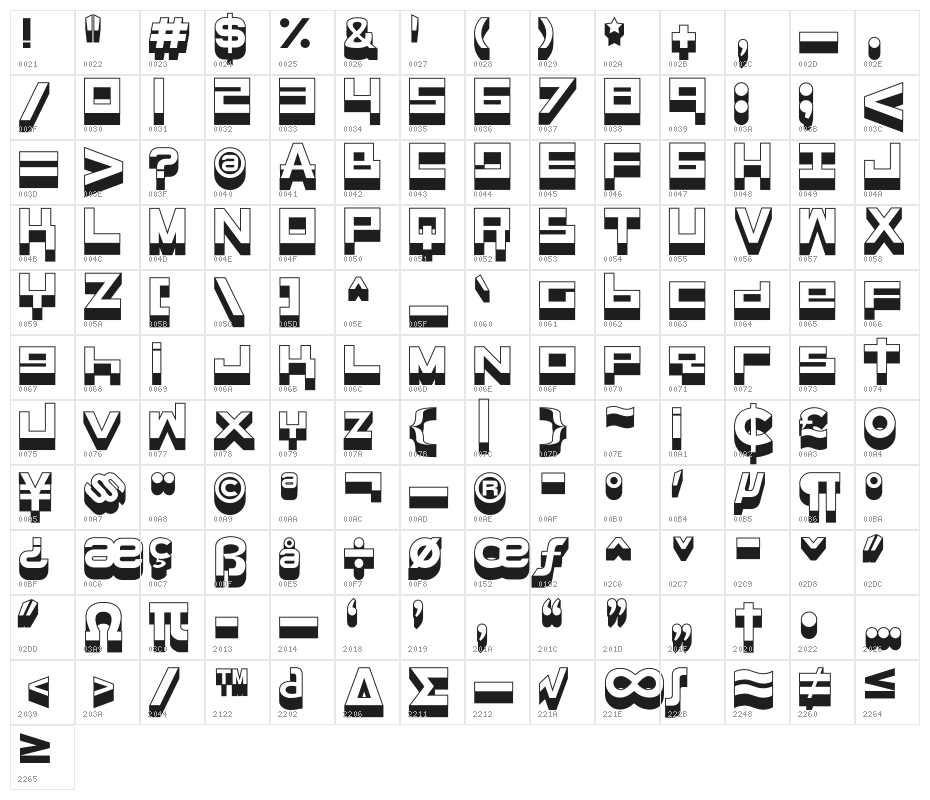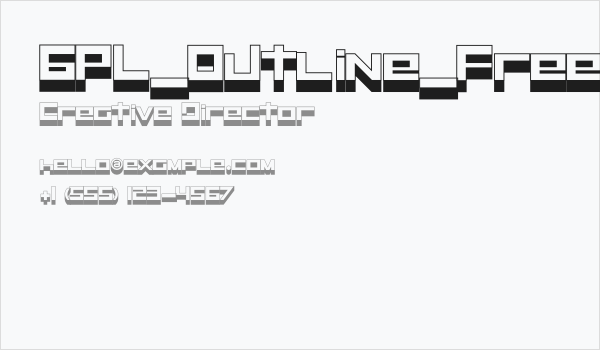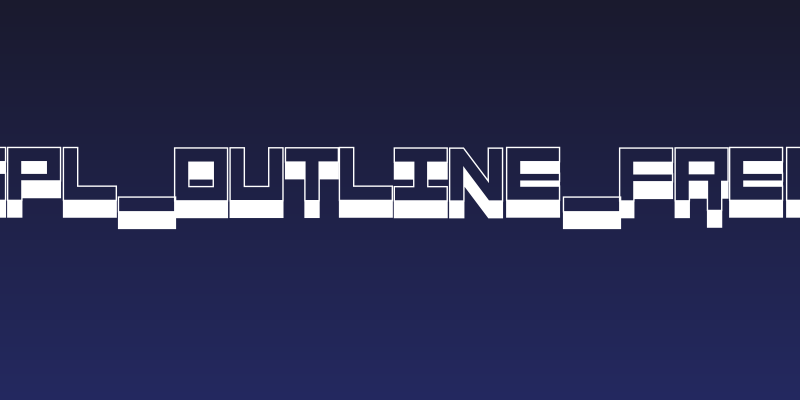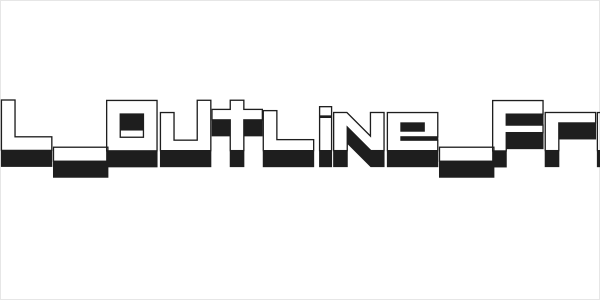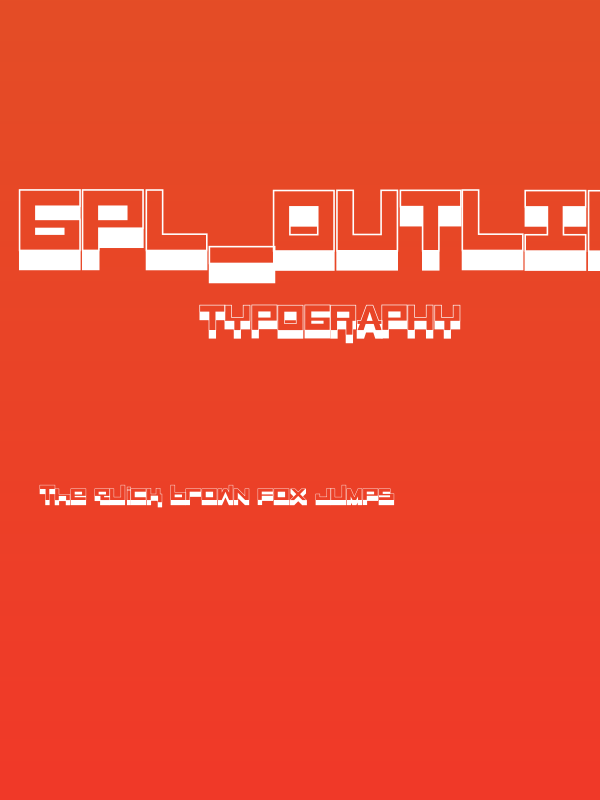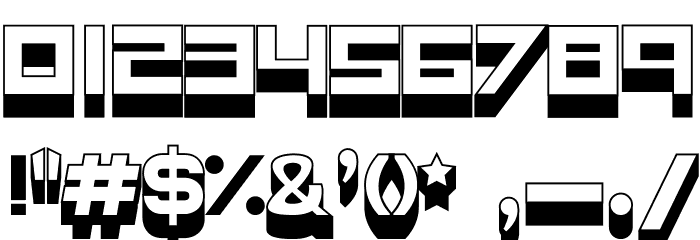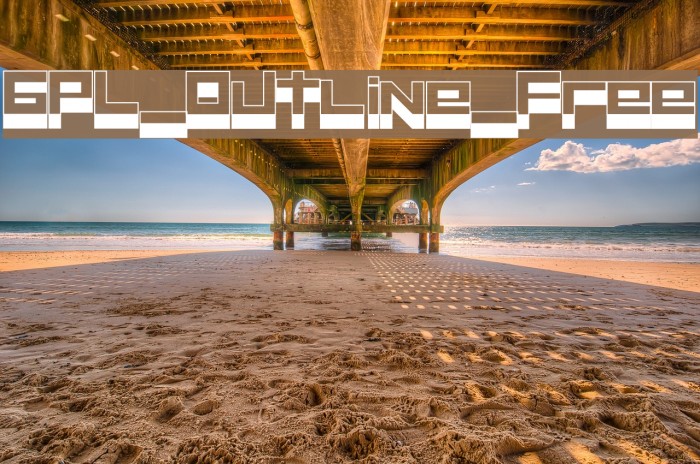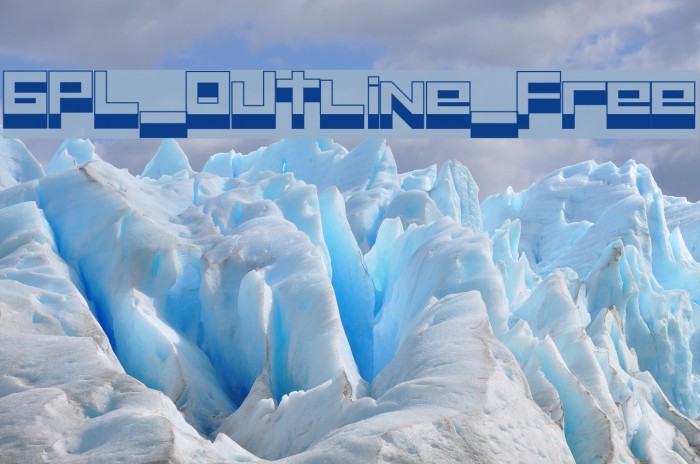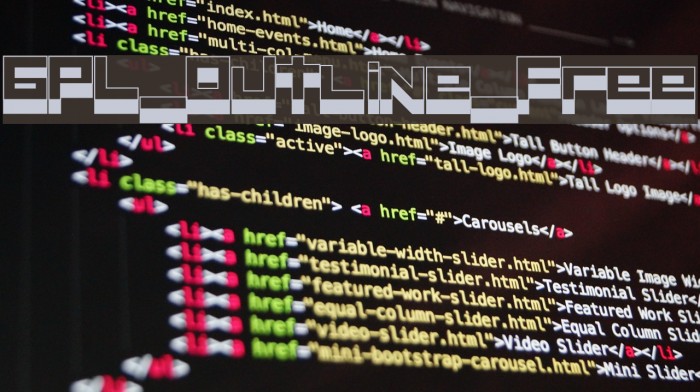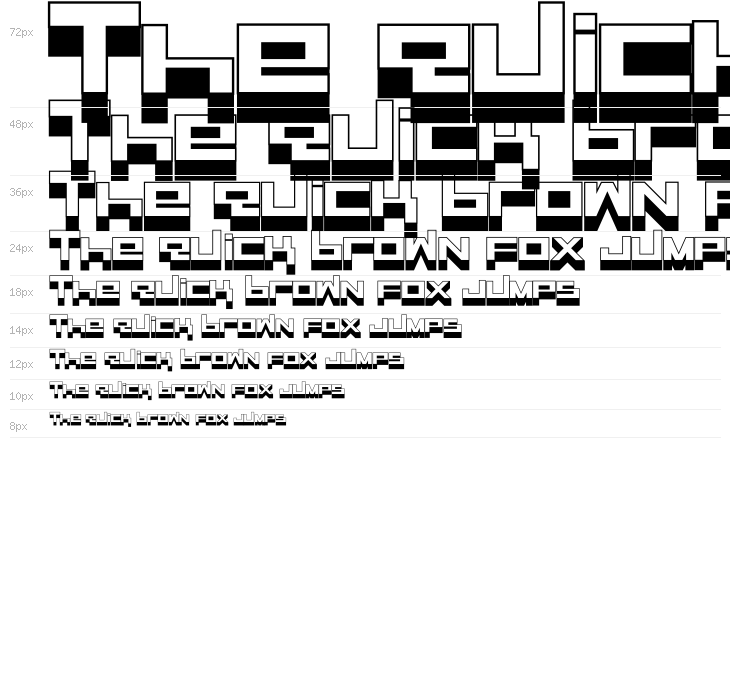
GPL_Outline_Free Font
GPL_Outline_Free Description
This font features a bold, three-dimensional outline style that gives each character a striking, shadowed appearance. The geometric shapes and sharp angles create a modern and futuristic look, making it stand out in any design. The uppercase and lowercase letters maintain a consistent style, with the lowercase being slightly smaller but equally bold. Numbers and special characters follow the same design principles, ensuring uniformity across all glyphs. The font's distinct outline and shadow effect add depth and dimension, making it ideal for eye-catching headlines and titles.
| Proposed Projects | Ideal for projects needing a bold statement, such as posters, logos, video game graphics, and sci-fi themed designs. |